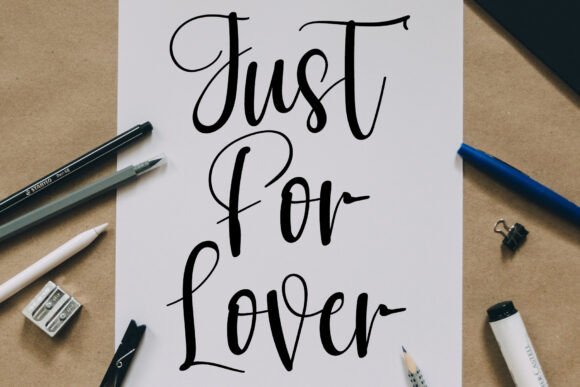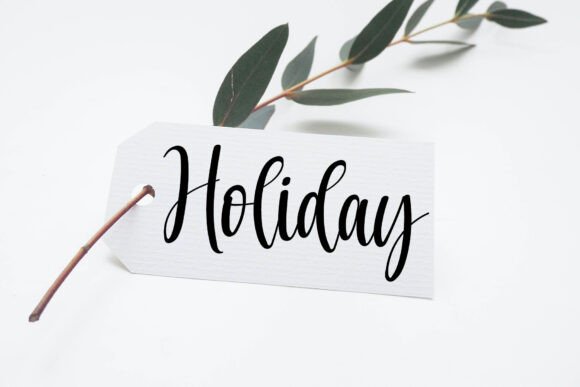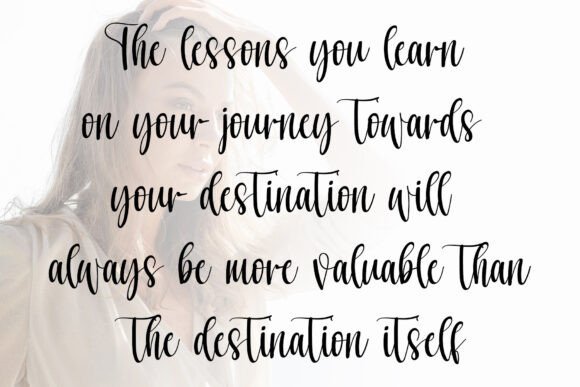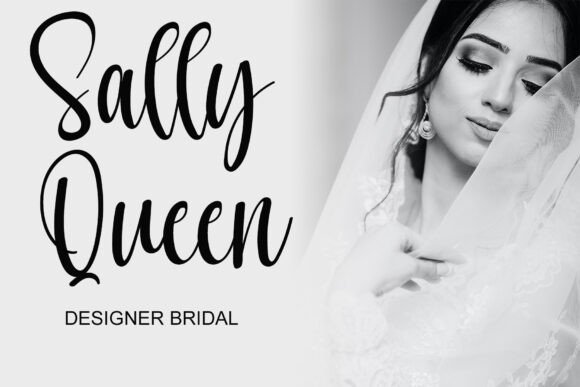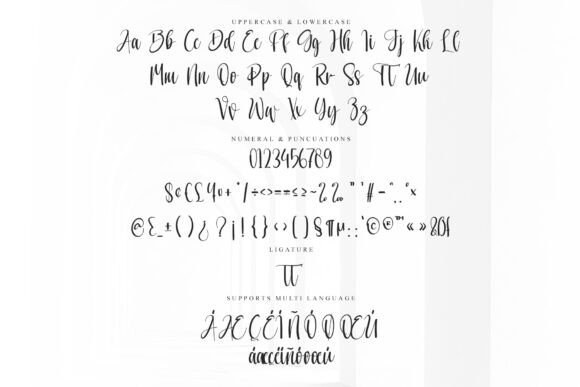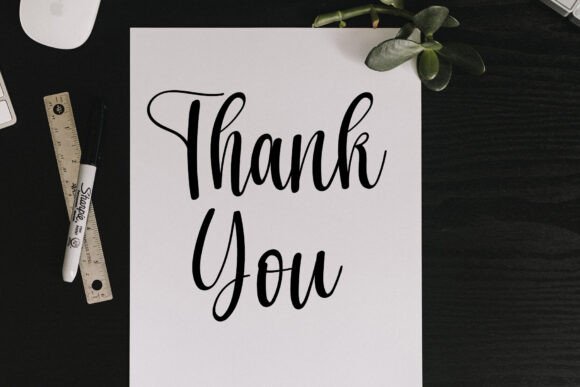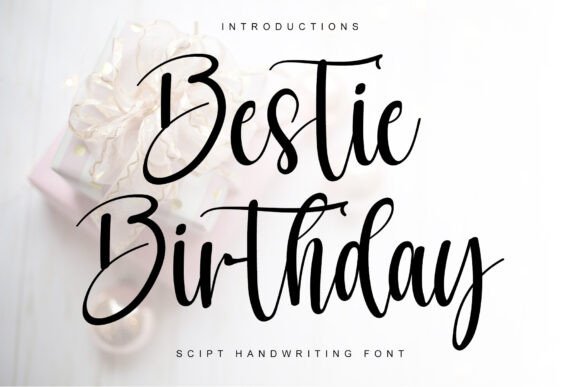
Introducing Bestie Birthday Font: Elevate Your Designs with Elegance
Are you a designer, crafter, or social media enthusiast looking for a font that adds a touch of magic to your projects? Look no further than the Bestie Birthday Font, a beautiful script font designed to bring elegance and sophistication to your creative endeavors. In this article, we’ll explore the features and benefits of this stunning font, and how it can help you turn your ideas into works of art.
The Story Behind Bestie Birthday Font
Bestie Birthday Font is a carefully crafted script font that combines the beauty of calligraphy with the elegance of modern design. Its creator aimed to develop a font that would be versatile, easy to read, and perfect for a wide range of applications, from social media graphics to DIY projects. With its unique blend of classic and contemporary elements, Bestie Birthday Font is sure to captivate your audience and leave a lasting impression.
Key Features of Bestie Birthday Font
- Magical Script Font: Bestie Birthday Font boasts a whimsical, script-style design that adds a touch of magic to any project.
- Elegant and Sophisticated: With its flowing lines and beautiful letterforms, this font exudes elegance and sophistication, making it perfect for special occasions and celebrations.
- Versatile: Bestie Birthday Font can be used for a wide range of applications, including Instagram graphics, DIY projects, invitations, and more.
- Easy to Read: Despite its ornate design, Bestie Birthday Font remains highly legible, ensuring that your message is conveyed clearly and effectively.
Bestie Birthday Font is an excellent choice for designers and crafters looking to add a personal touch to their projects. Whether you’re creating:
- Social Media Graphics: Use Bestie Birthday Font to create stunning Instagram posts, Facebook graphics, and Twitter headers that showcase your creativity and style.
- DIY Projects: Add a touch of elegance to your handmade crafts, such as cards, gift tags, and scrapbook pages, with this beautiful script font.
- Invitations and Stationery: Create bespoke invitations, wedding stationery, and other paper goods that exude sophistication and refinement.
Tips for Using Bestie Birthday Font
To get the most out of Bestie Birthday Font, consider the following tips:
- Pair with Complementary Fonts: Combine Bestie Birthday Font with simpler fonts to create visual interest and hierarchy in your designs.
- Experiment with Colors: Try pairing Bestie Birthday Font with a range of colors to add depth and personality to your designs.
- Use for Headlines and Titles: Bestie Birthday Font is perfect for headlines and titles, where its elegant design can make a lasting impression.